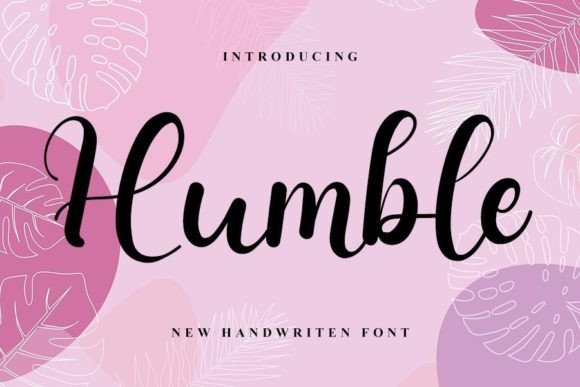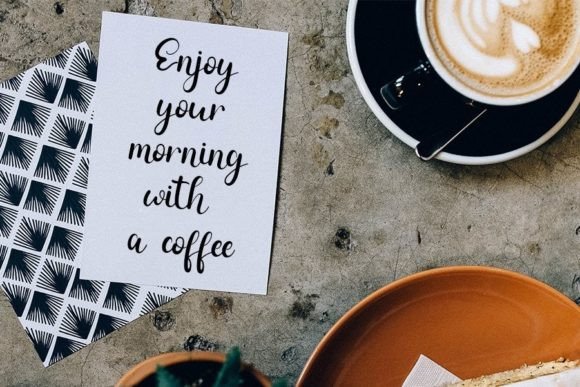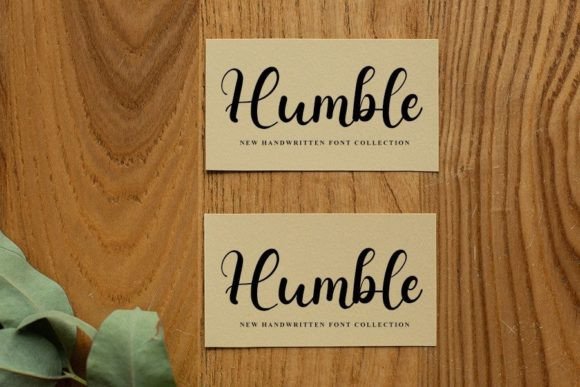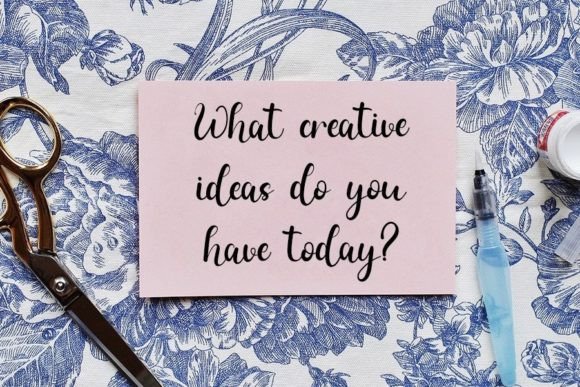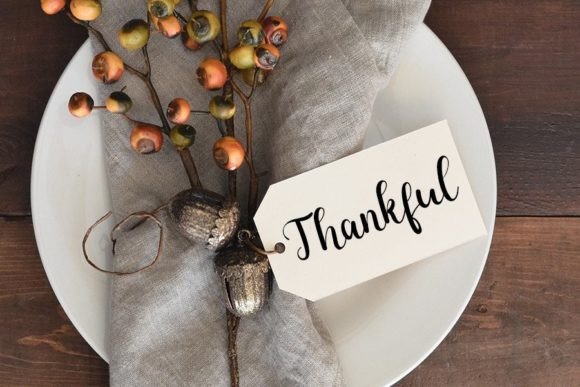
Humble Font
About Humble Font
“Humble” is a refined and elegant handwritten font that exudes a sense of neatness and beauty. Its carefully crafted letterforms and elegant touch make it a perfect choice for a wide range of creative projects. With its distinct and timeless style, this font is designed to captivate and inspire, allowing you to create spectacular designs that leave a lasting impression.
The font’s neat and beautiful appearance makes it incredibly versatile. Whether you’re working on branding, invitations, social media graphics, quotes, packaging, or any other creative project, “Humble” adds a touch of sophistication and grace. Its elegant simplicity ensures that it complements various design elements and styles, making it a valuable asset in your font collection.
One of the standout features of “Humble” is its ability to convey a sense of understated elegance. Its timeless style means that it doesn’t adhere to fleeting trends, ensuring that your designs maintain their appeal for years to come. Its distinct characters and clean lines create a polished and professional look, making it suitable for both formal and informal contexts.
Fall in love with the understated beauty of “Humble” and allow it to elevate your favorite projects. Whether you’re creating a logo, designing invitations for a special event, or crafting inspirational quotes, this font adds a touch of class and refinement. Embrace its elegant charm and let “Humble” be the key to creating designs that are both sophisticated and visually stunning.